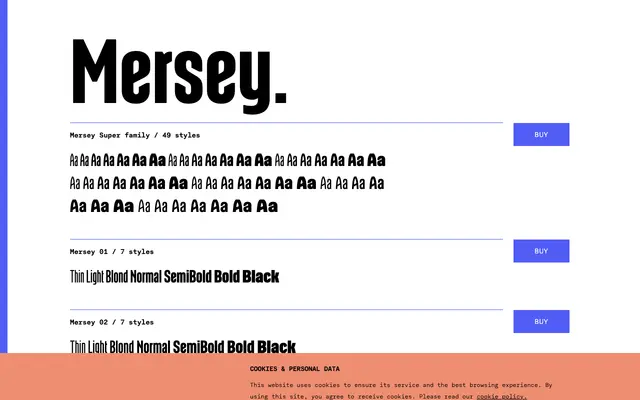
Mersey
A 49-style grotesque superfamily from TYPE BY, built across seven numbered sub-families each offering seven weights from Thin to Black.
Each of the seven sub-families shares the same weight range -- Thin, Light, Blond, Normal, SemiBold, Bold and Black -- giving 49 styles in total across the superfamily. Up to 18 stylistic sets per style suggest considerable alternate glyph coverage for typographic flexibility. The numbered sub-family structure points to a systematic approach where stylistic differences between variants allow considered mixing within a single project.
The page presents a large sans-serif superfamily with weight names typical of grotesque traditions; the multiple stylistic sets and sub-families suggest a systematic grotesque with optical or stylistic variations across seven numbered sub-families.